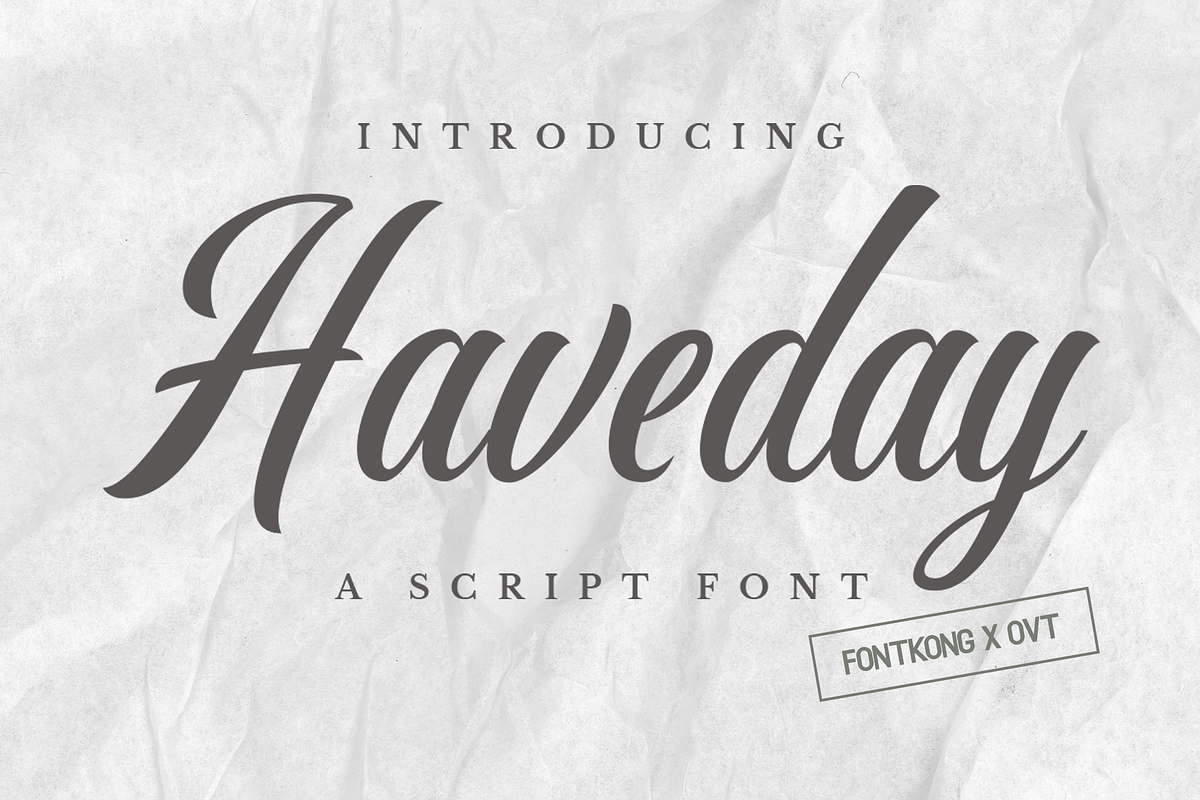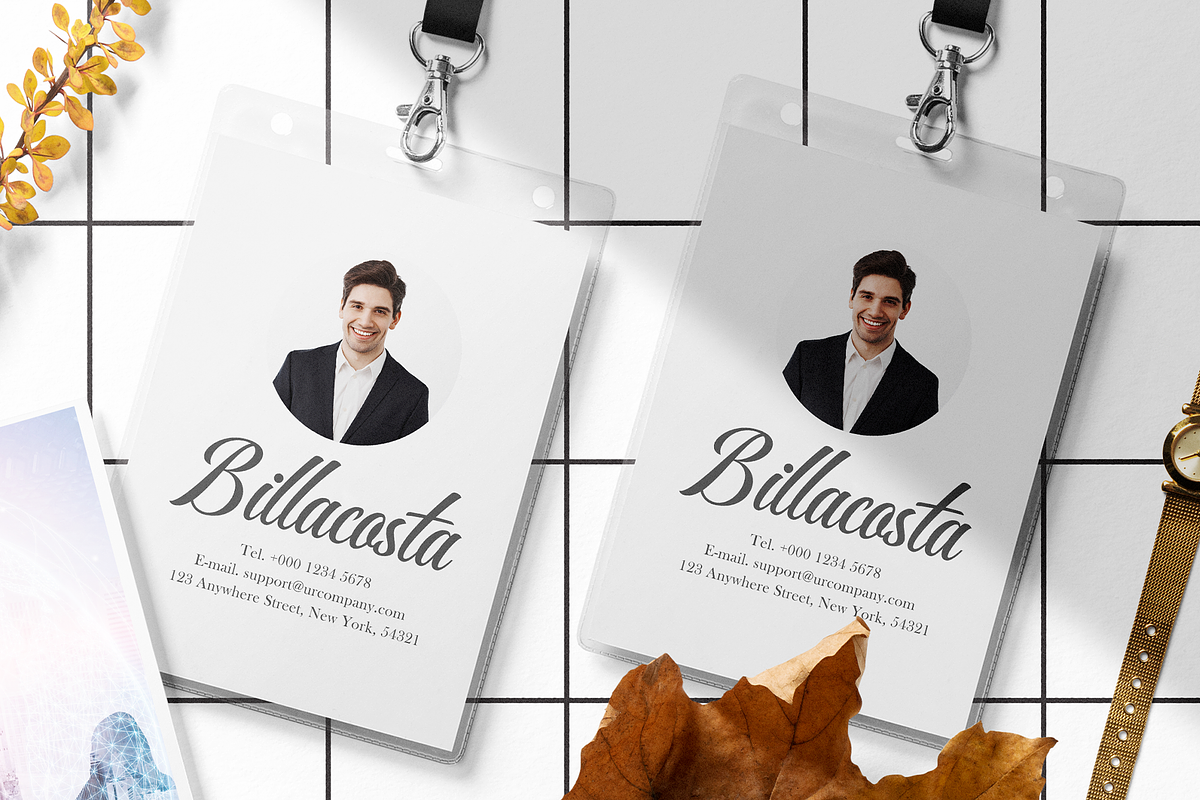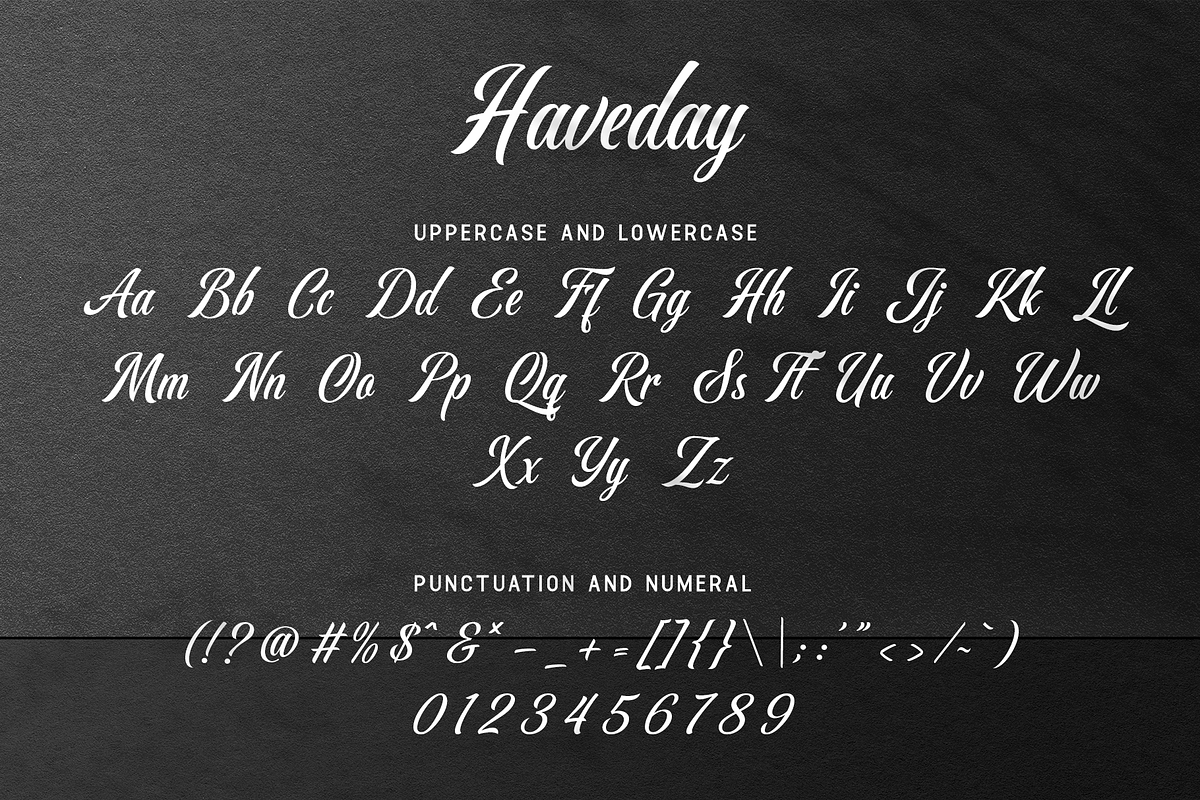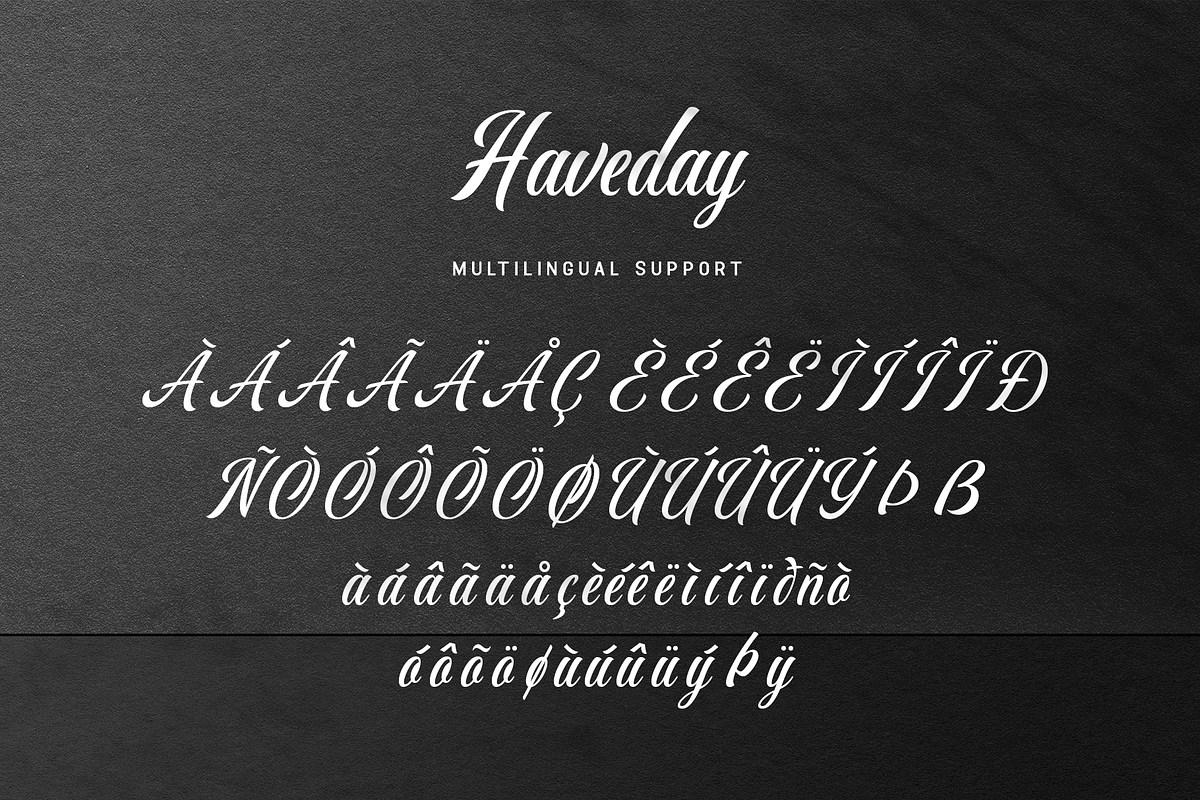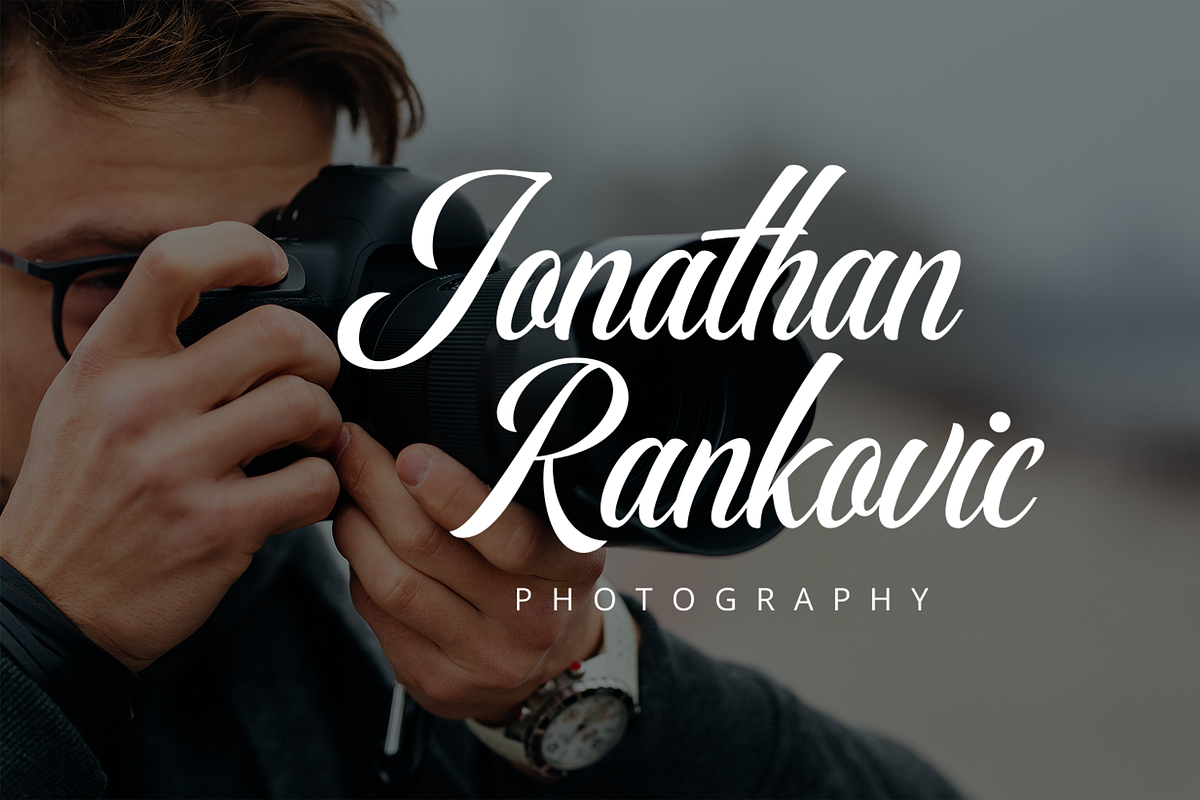
Haveday - Script Font
Introducing "Haveday," a script font designed to bring elegance and sophistication to your projects. Perfect for designers, stylists, and creatives who want to add a touch of refinement to their work, Haveday offers graceful curves and flowing strokes that capture the essence of beauty in every letter.
Ideal for invitations, wedding stationery, branding, and product packaging, Haveday's delicate yet confident style provides a timeless and romantic aesthetic. Each character is meticulously crafted to convey a sense of effortless grace, making your designs stand out with poise and charm.
The "Haveday" font includes a full set of uppercase and lowercase letters, numbers, punctuation marks, and ligatures. This versatility allows for seamless integration into various design projects, from elegant wedding invitations to luxurious branding materials.
Embrace every moment with elegance using Haveday, the script font that adds a touch of refined beauty to every design.